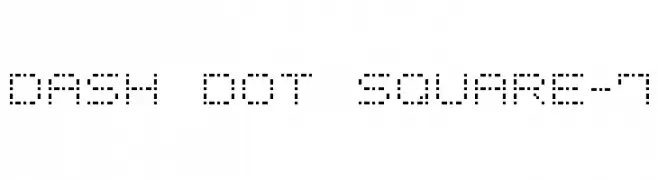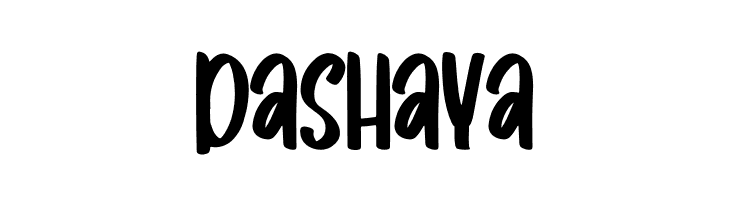
A bold, playful handwritten font with thick strokes and a casual, dynamic style.
A bold, geometric font with strong lines and modern appeal.
A bold, modern sans-serif font with geometric shapes and clean lines.
A bold, angular font with a dynamic, forward-leaning design.
A bold, modern sans-serif font with clean lines and geometric structure.
A playful, rounded font with a hand-drawn, whimsical style.
A modern, elegant script font with flowing, handwritten style.
A modern, dashed line font with a playful and geometric style.
A dynamic and elegant font with calligraphic influences and sharp, angular strokes.
An elegant and sophisticated cursive script font with intricate loops and swirls.